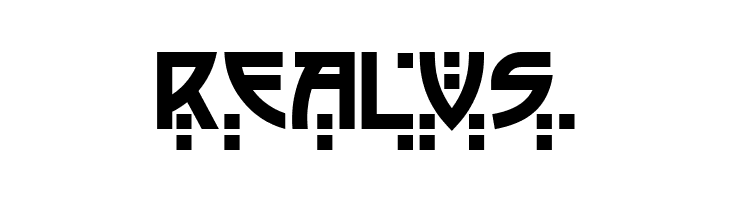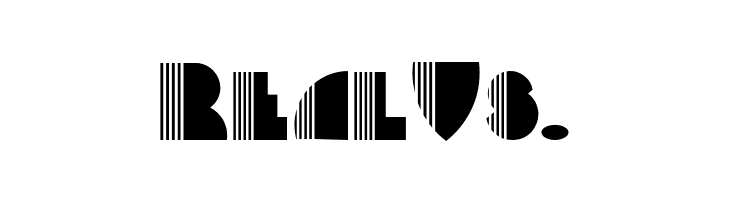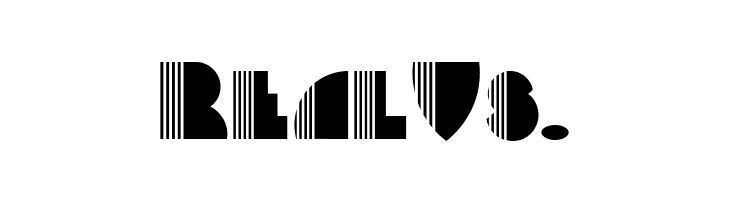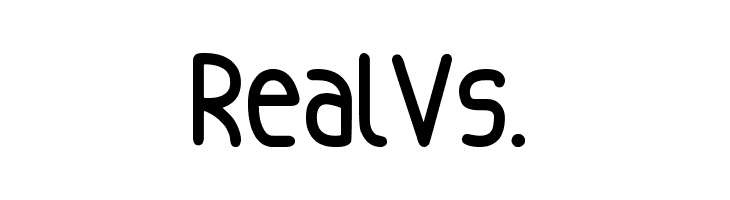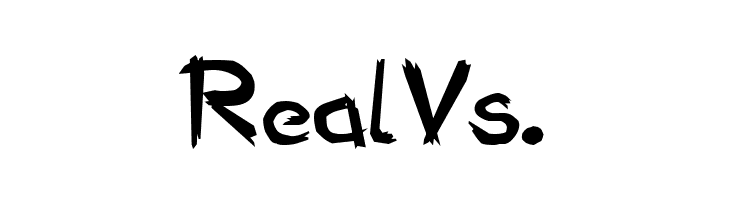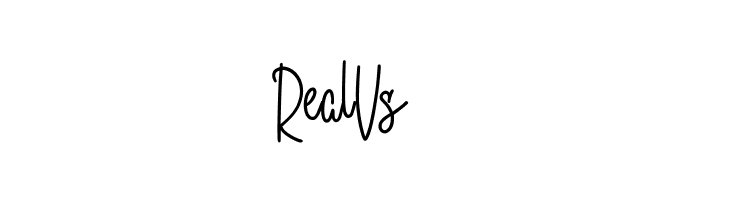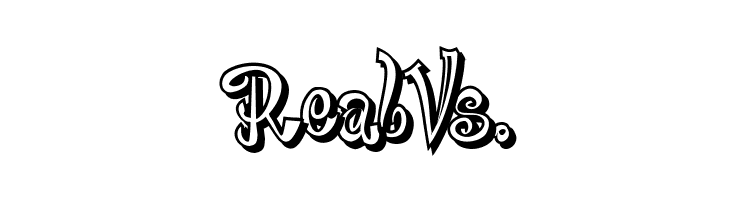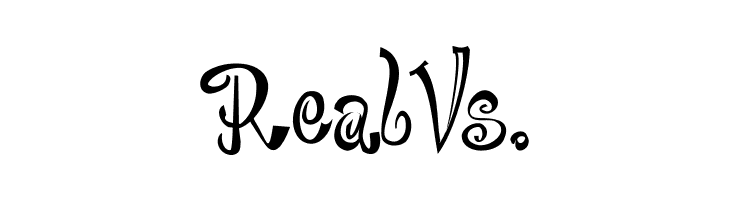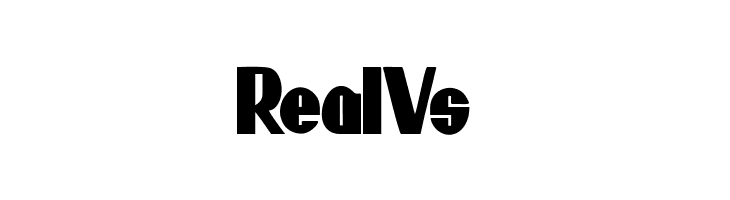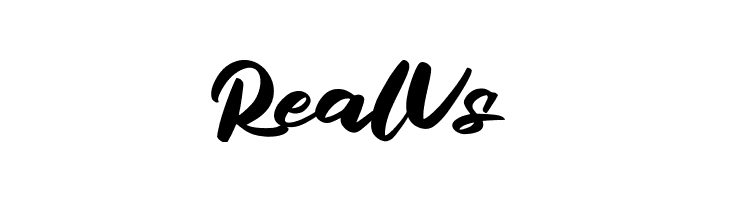
• Back2School
Cartoon school-themed illustrative font with characters made from playful scenes.
• Backers Free Regular
A bold, expressive handwritten font with fluid strokes.
• Backstage Pass NF
A bold, geometric font with a mix of solid and striped elements for a striking visual impact.
• BackstagePassNF
A bold, geometric font with striped patterns and strong visual impact.
• Bad boy
Cartoon face dingbat font with expressive, whimsical characters.
• Bad Caligula
A bold, distressed font with rough, textured edges and a grungy appearance.
• Bad Calligraphic
• Bad Films
• Bad Future
• Bad Pizza
A bold, playful font with a whimsical, cartoonish style.
• Bad Pizza wth Pepperoni
A playful, pizza-themed decorative font with bold outlines and whimsical details.
• bad robot
A bold, blocky font with a digital, pixelated style.
• bad robot 3d
A bold, geometric font with a 3D effect and a futuristic, robotic style.
• bad robot 3d italic
A bold, 3D italic font with a futuristic, geometric design.
• bad robot ital3dl
A futuristic, 3D-outlined font with angular, geometric shapes and a consistent slant.
• bad robot italic
A bold, angular, and futuristic italic font with a mechanical aesthetic.
• bad robot italic laser
A bold, italic, futuristic font with sharp angles and a robotic feel.
• bad robot laser
A bold, geometric font with a futuristic, digital aesthetic.
• bad robot laser 3d
A futuristic, geometric font with a bold, three-dimensional appearance.
• Bad Seed Bold
• BadBaltimore Beveled
A bold, decorative font with a three-dimensional beveled effect and striped pattern.
• BadBaltimoreBeveled
A bold, decorative font with a beveled, textured design.